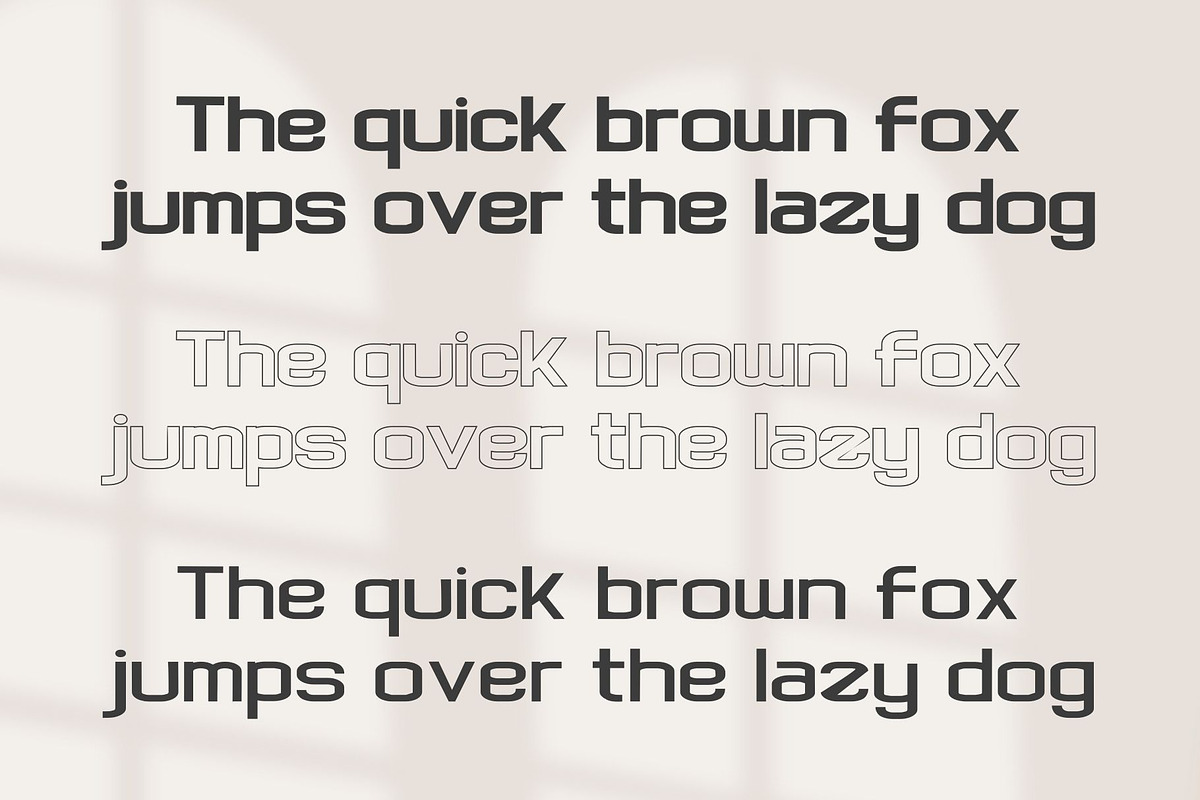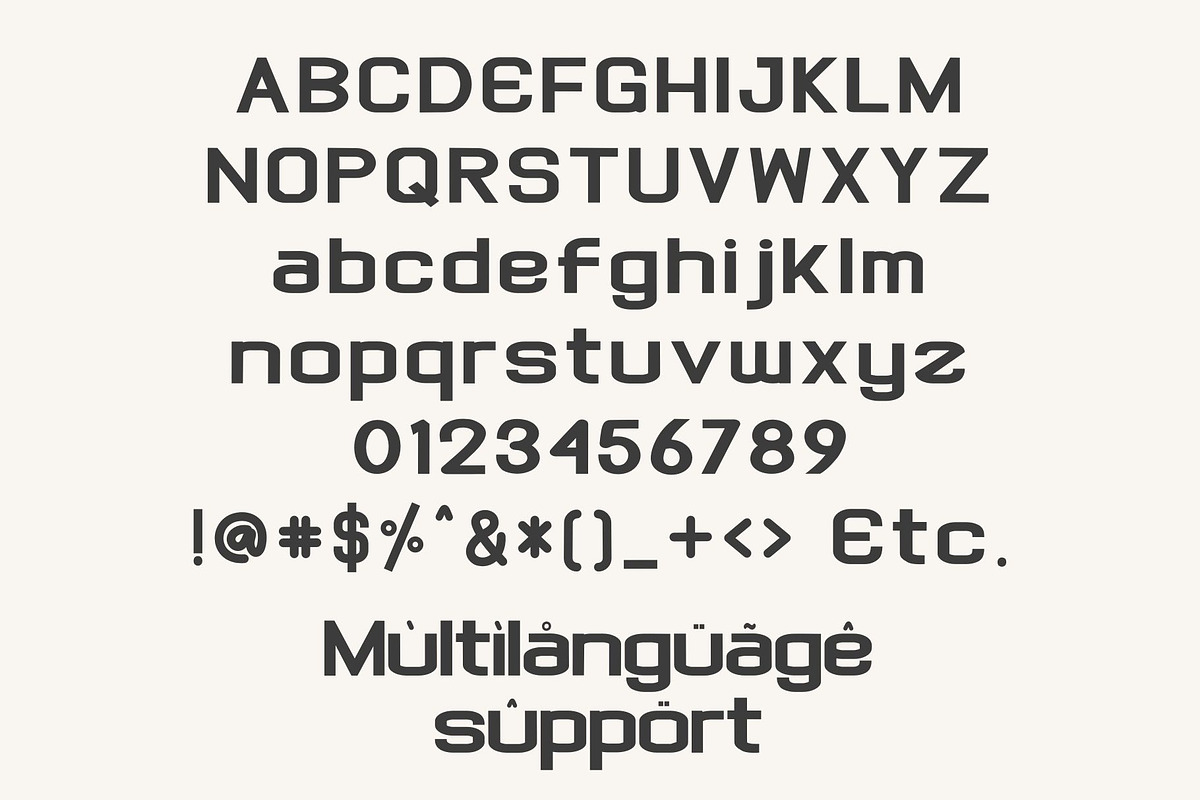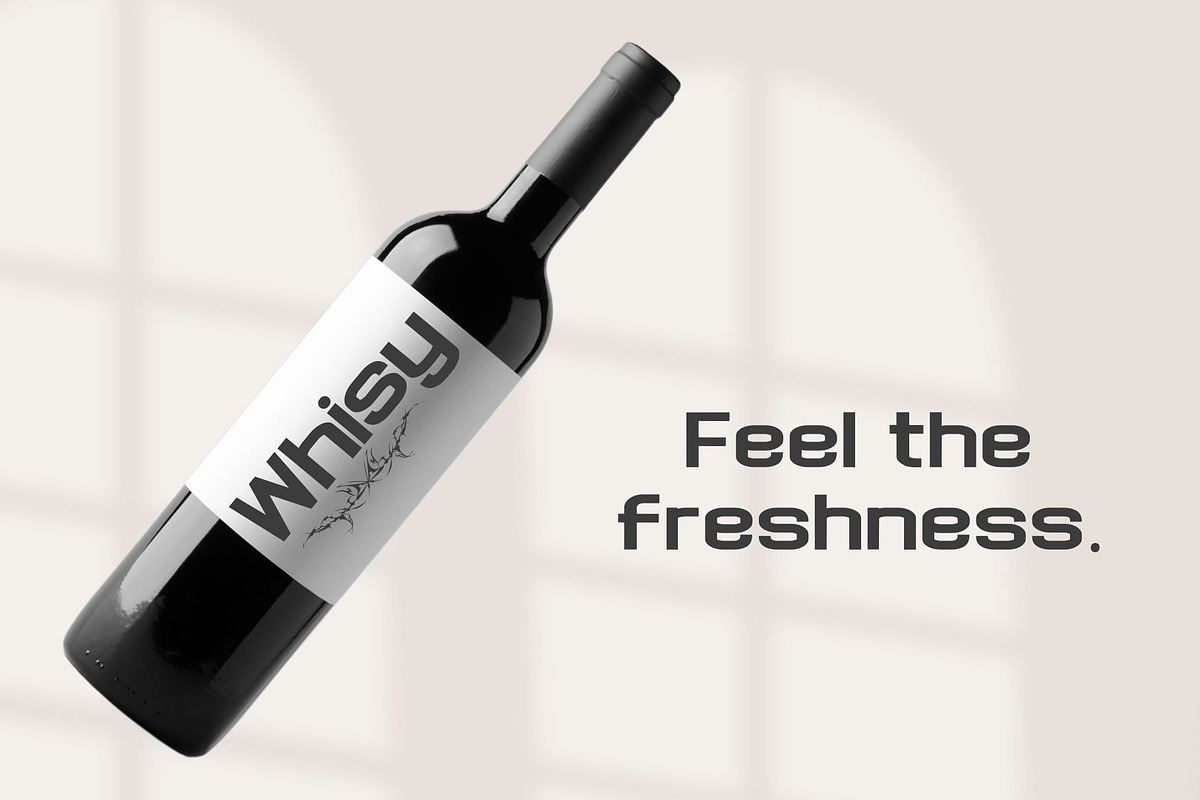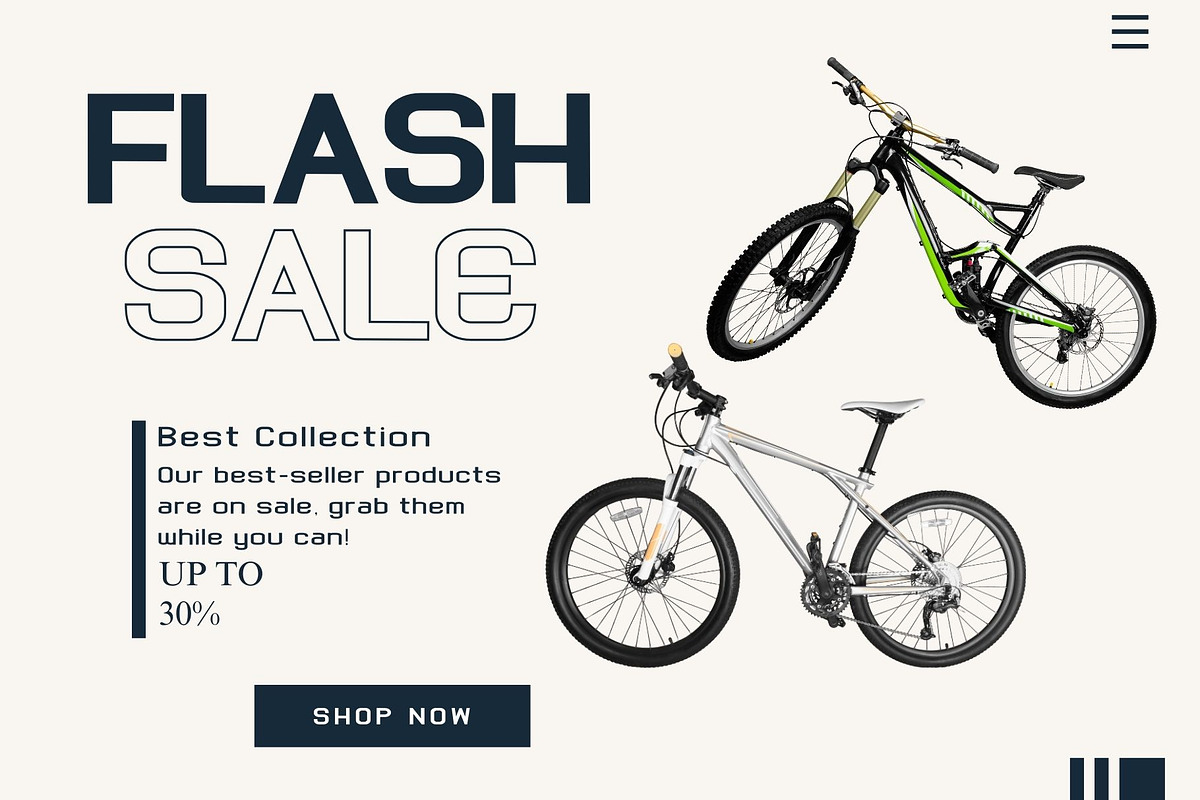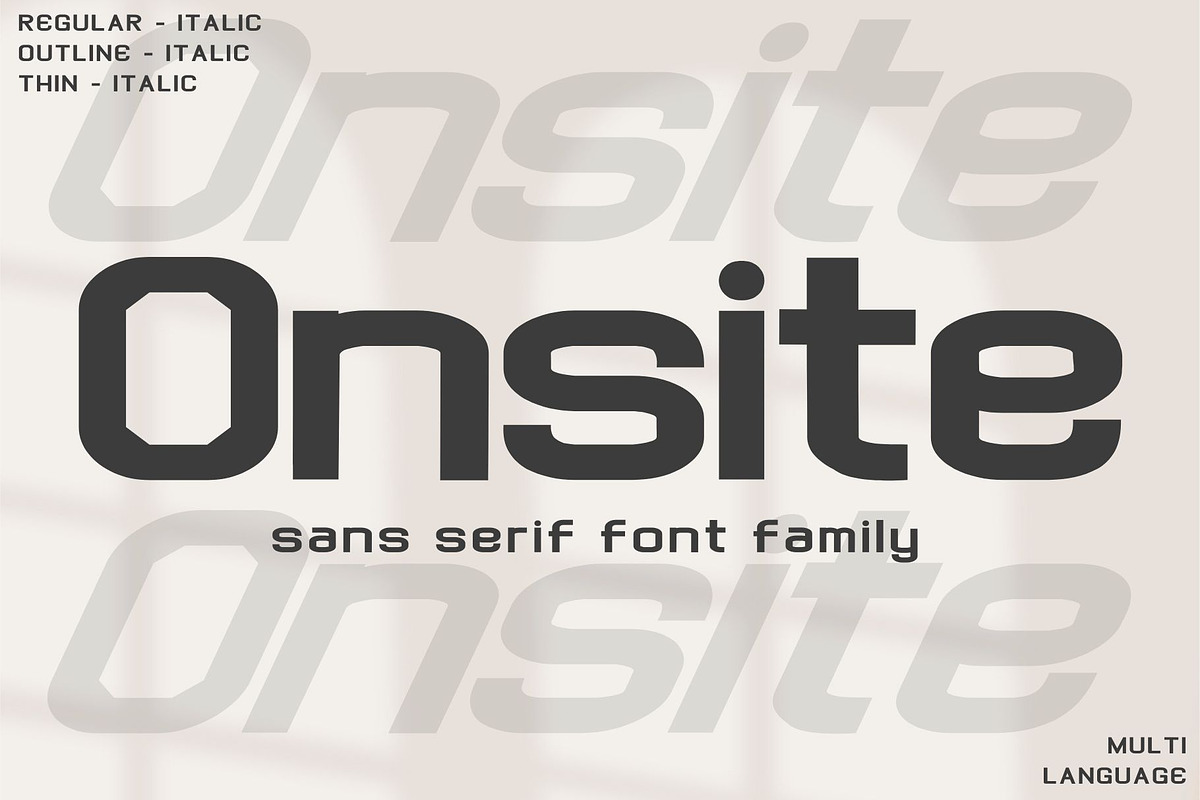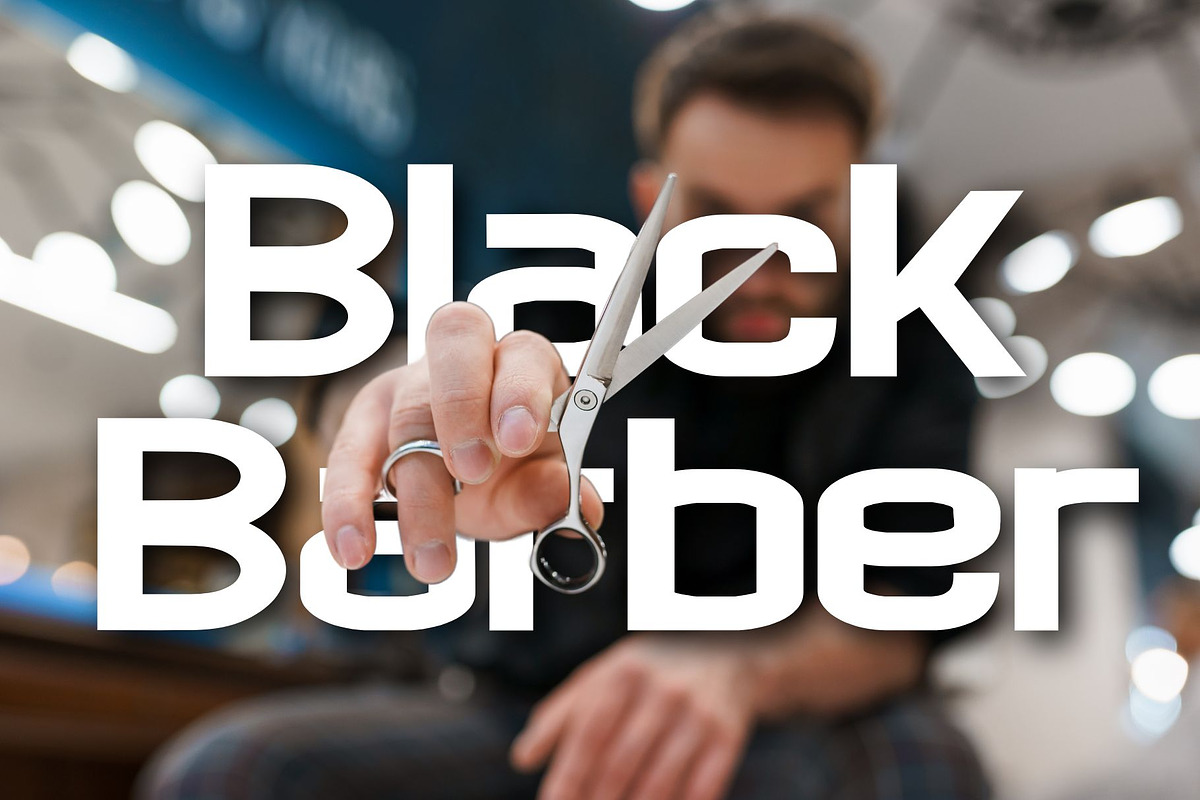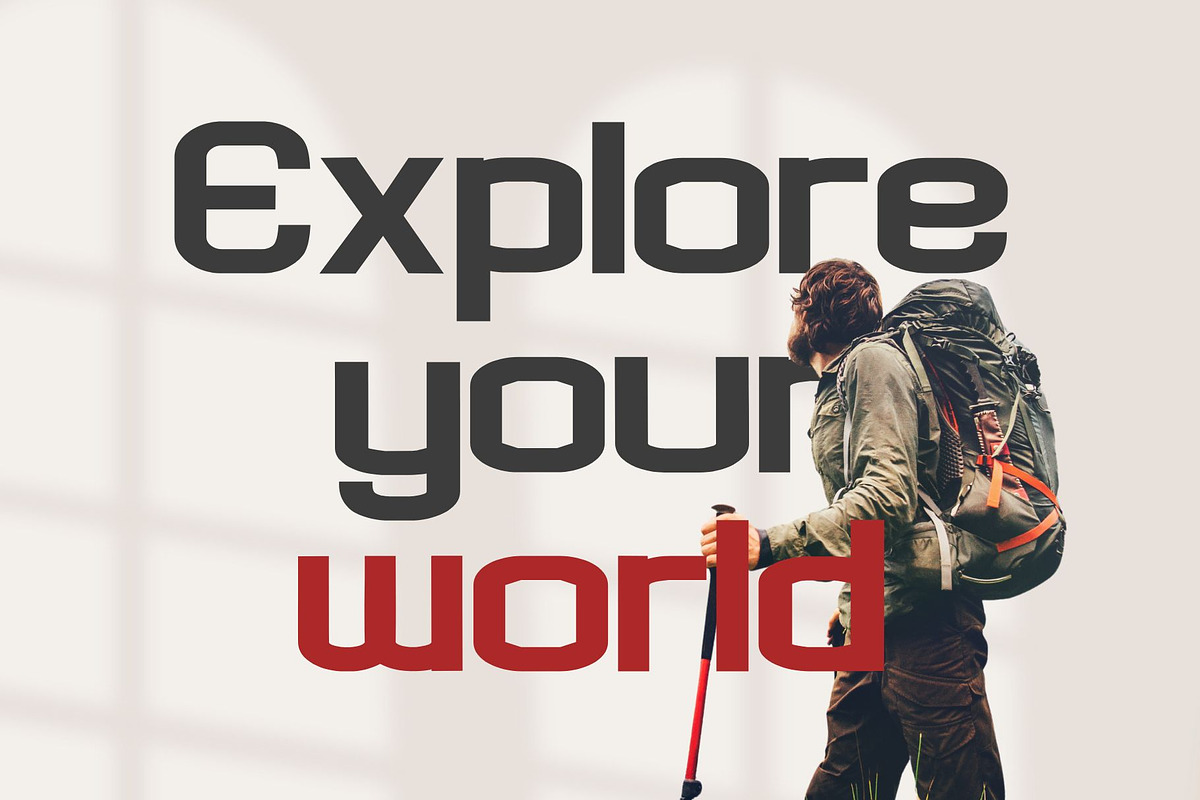
Onsite
Infuse your creative designs with the highly versatile Onsite, a sleek, sans-serif font family. Aptly named, Onsite stands as an exemplary choice when it comes to refining the aesthetic of your projects, instilling a sense of sophistication and professionalism. Rendered with mathematical precision and clear linearity, Onsite is primed to enhance your work, magnifying its visual appeal with a timeless, unambiguous nature inherent in sans serif fonts. Elevate your design projects to new heights of professionalism and elegance with the Onsite font family.